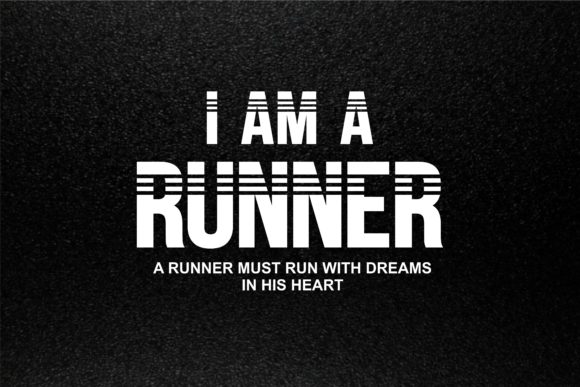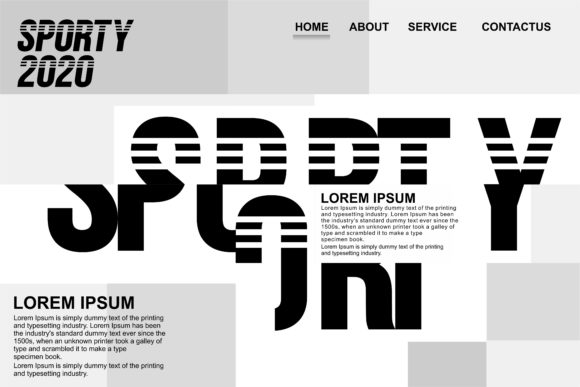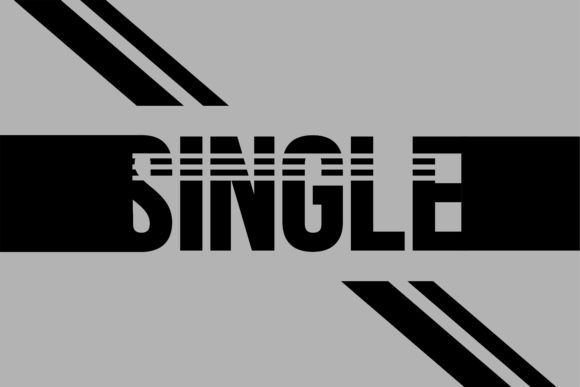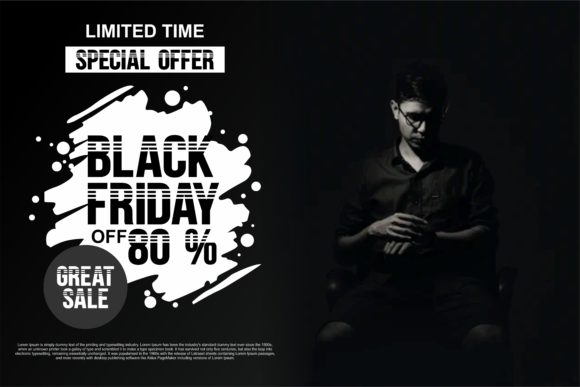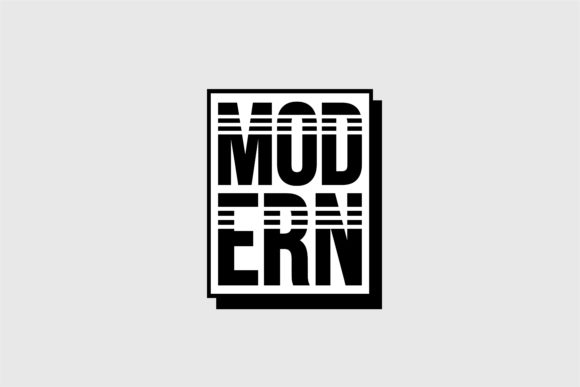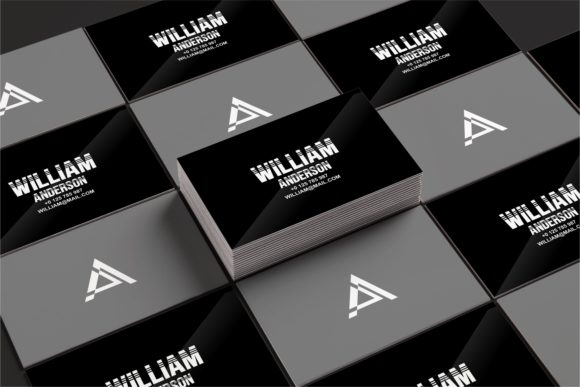
Introducing Grano Font: The Ultimate Display Font for Stunning Headlines and Text
In the world of typography, a good font can make all the difference in creating visually appealing designs. If you’re a designer, craftsperson, or simply someone who appreciates beautiful typography, you’re in luck. Grano font is a strong display font that is taking the design world by storm. In this article, we’ll dive into the features and benefits of Grano font, and explore why it’s becoming a favorite among designers and crafters.
What is Grano Font?
Grano is a robust and versatile display font that is perfect for creating stunning headlines, titles, and blocks of text. Its unique design makes it suitable for a wide range of applications, from web design and print materials to moving images and more. Whether you’re working on a logo, brochure, or website, Grano font is sure to make a statement.
Key Features of Grano Font
So, what makes Grano font so special? Here are some of its key features:
• Strong and Versatile: Grano font is designed to be strong and versatile, making it perfect for headlines of all sizes, as well as for blocks of text with varying font sizes.
• Highly Legible: Despite its bold design, Grano font is highly legible, even at smaller font sizes. This makes it ideal for use in a variety of contexts, from body text to captions.
• Wide Range of Applications: Grano font is suitable for a wide range of applications, including web design, print materials, moving images, and more.
• Unique Design: Grano font has a unique design that sets it apart from other display fonts. Its rugged, geometric shape gives it a distinctive look that’s sure to grab attention.
Benefits of Using Grano Font
So, why should you choose Grano font for your next design project? Here are some benefits of using this amazing font:
• Instant Impact: Grano font is designed to make an instant impact. Its bold, attention-grabbing design is sure to draw the eye and hold the reader’s attention.
• Flexibility: Grano font is highly versatile, making it suitable for use in a wide range of contexts, from headlines to body text.
• Professional Look: Grano font has a professional, polished look that’s perfect for businesses, brands, and individuals who want to make a strong impression.
• Easy to Read: Despite its bold design, Grano font is easy to read, even at smaller font sizes. This makes it ideal for use in body text and other applications where legibility is key.
How to Use Grano Font in Your Designs
So, how can you use Grano font in your designs? Here are some tips and ideas to get you started:
• Headlines and Titles: Use Grano font to create stunning headlines and titles that grab attention and make a statement.
• Body Text: Grano font is also suitable for use in body text, particularly in contexts where a bold, attention-grabbing design is desired.
• Logos and Branding: Grano font is perfect for use in logos and branding materials, particularly for businesses and brands that want to make a strong impression.
• Web Design: Grano font is highly versatile and can be used in a wide range of web design applications, from headings and titles to body text and more.
In conclusion, Grano font is an amazing display font that’s perfect for designers, craftspersons, and anyone who appreciates beautiful typography. Its unique design, versatility, and high legibility make it suitable for a wide range of applications, from web design and print materials to moving images and more. Whether you’re working on a logo, brochure, website, or any other design project, Grano font is sure to make a statement. So why not give it a try and see the impact it can have on your designs?